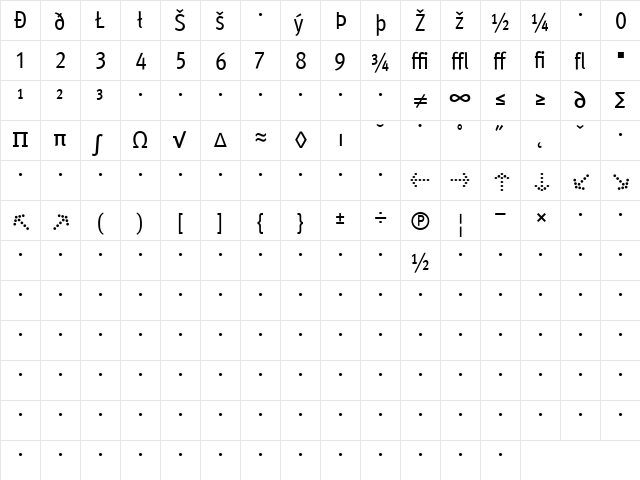
MetaCondBook Book Font Preview
MetaCondBook Book
MetaCondBook Book Font Details
| Foundry | Erik Spiekermann, Ole Schaefer, . Published by FontShop International for FontFont Release MetaCondensed is a trademark of FSI Fonts and Software GmbH |
Design Context for MetaCondBook Typeface
MetaCondBook is a composed and adaptable typeface that performs quietly and consistently across a wide range of design contexts. The condensed width makes it efficient for tight spaces without sacrificing legibility.